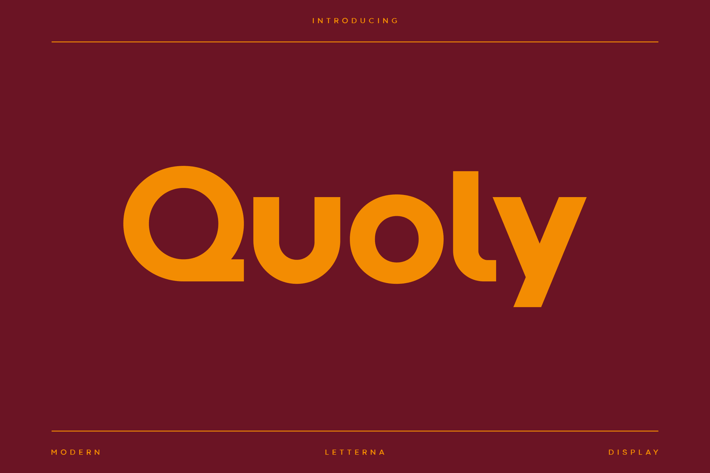
Quoly - Modern Display Typeface
Quoly Font is a meticulously crafted typeface designed specifically for logos, branding, headers, and titling. With a modern and sophisticated appearance for impactful logos and branding materials, this font ensures your designs make a lasting impression. This font is suitable for trendy packaging label designs, unique desired logos and branding, poster designs, fashion and many more.